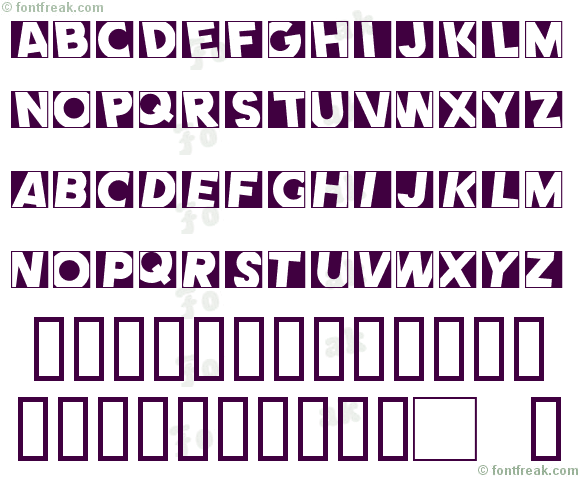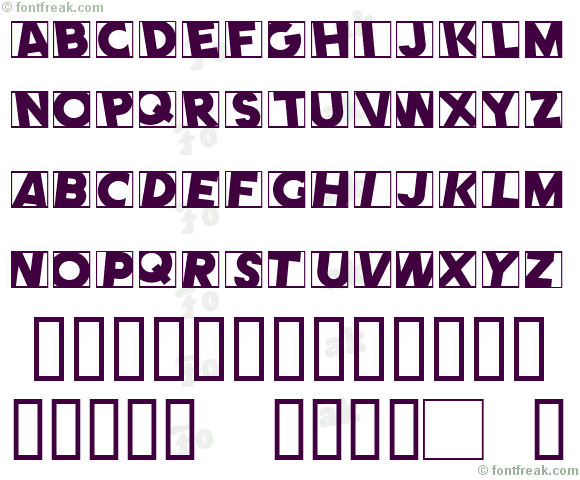
Comet Positive
Comet Negative
Comet Positive is a distinctive display font designed by Harold Lohner, inspired by the logo of Country Music Television (CMT). This font features a bold, geometric style that captures attention with its unique character. As a display font, Comet Positive stands out with its strong stroke weight and playful letterforms, making it ideal for projects that require a bit of flair. The spacing between letters is well-balanced, providing clarity and readability, even at larger sizes. The lack of intricate decorative elements allows for a clean, modern aesthetic, while its rounded edges lend a friendly and approachable vibe.
This font is versatile and can be utilized in a variety of creative contexts. It works exceptionally well for eye-catching movie posters, where its boldness can draw viewers in. Additionally, Comet Positive is a great choice for restaurant menus that aim to make a memorable impression, adding a touch of personality to the dining experience. Graphic designers may find it perfect for branding projects, particularly those targeting a youthful or energetic audience. It's also suitable for social media graphics, where visual impact is key to engaging followers. Small business owners can leverage this font to elevate their promotional materials, ensuring they stand out in a competitive market.
Targeting graphic designers, small business owners, and content creators, Comet Positive offers a unique option for those looking to make a statement. Its availability as a freeware makes it accessible, allowing users to integrate it into their projects without financial constraints. The Comet Positive font free download makes this distinctive typeface an appealing choice for anyone seeking to enhance their visual communication with confidence and style, making it a standout option in the world of typography.